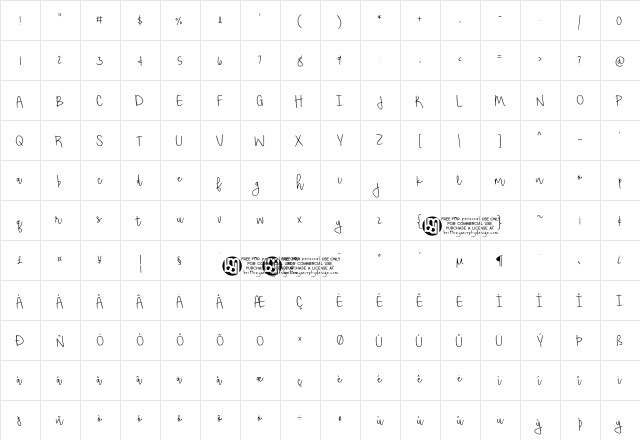
Shorthalt Thin Regular
| Foundry | Brittney Murphy |
| Designer | Brittney Murphy |
Design Context for Shorthalt Thin Typeface
Shorthalt Thin takes a measured approach to typography — its balanced proportions and neutral character make it a reliable workhorse for both digital and print work. Its slender proportions lend an understated elegance to any composition.